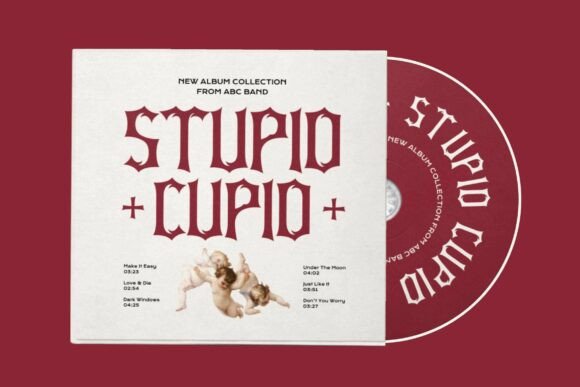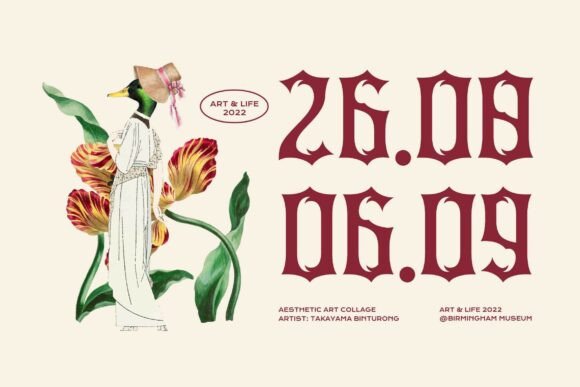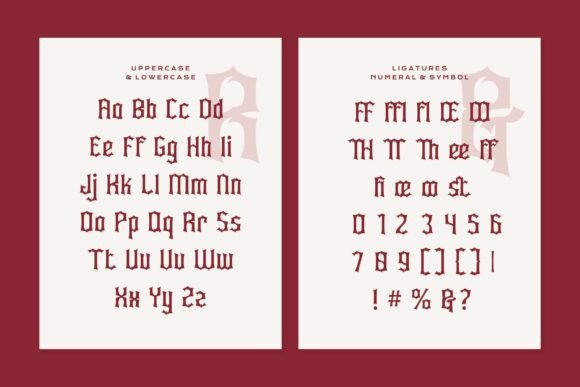
Unveiling Goneasi Font: The Romantic Gothic Typeface Redefining Blackletter Style
In the realm of typography, few fonts manage to capture the essence of both historical gravitas and modern sophistication. Goneasi typeface is one such remarkable creation that reimagines the traditional blackletter style with a contemporary twist. This romantic gothic font is not just a typeface but an experience, designed to elevate your designs with its unique blend of classic and modern elements.
The Essence of Goneasi Typeface
Goneasi typeface stands out with its dagger-like sharp serifs and tall, slender letterforms, creating a dramatic silhouette that commands attention. This distinctive feature set allows it to blend the ornamental spirit of classic blackletter with a modern impression, making it perfect for a wide range of design applications. From impactful titles and music album covers to fashion branding, editorial layouts, event posters, and premium product packaging, Goneasi brings a touch of elegance and boldness to any project.
Design Versatility
One of the key strengths of the Goneasi typeface is its versatility. It thrives in both dark, moody aesthetics and romantic vintage designs, making it an ideal choice for designers looking to create a specific ambiance. Whether you’re working on a project that demands a sophisticated yet bold touch or aiming to create a focal point with ornate illustrations or minimalist compositions, Goneasi typeface adapts seamlessly.
Technical Excellence: PUA Encoding
Goneasi font is PUA (Private Use Area) encoded, which means it offers effortless access to all glyphs, swashes, and alternate characters. This feature is particularly beneficial for designers as it provides the flexibility to experiment with different stylistic variations without the hassle of glyph substitution or manual adjustments. The PUA encoding ensures that you can unlock the full creative potential of the Goneasi typeface, making your design process smoother and more efficient.
Applications of Goneasi Typeface
- Music Album Covers: The dramatic and elegant presence of Goneasi makes it an excellent choice for music album covers, especially for genres like classical, gothic rock, or indie music.
- Fashion Branding: For fashion brands looking to convey a sense of luxury, mystery, or romance, Goneasi typeface offers a unique solution that sets them apart from the competition.
- Editorial Layouts: Add a touch of sophistication to editorial layouts, including magazines, journals, and books, with the distinctive look of Goneasi.
- Event Posters: Create stunning event posters for weddings, gothic-themed parties, or literary events with a font that exudes elegance and mystery.
- Premium Product Packaging: Elevate the packaging of luxury products with a typography that speaks of high-end quality and sophistication.
Why Choose Goneasi?
Choosing Goneasi typeface for your design project means opting for a font that is not just visually striking but also versatile and practical. Its unique blend of traditional blackletter elements with a modern twist ensures that your designs stand out. Moreover, the PUA encoding of Goneasi font makes it user-friendly, allowing designers to focus on creativity rather than technical limitations.
Goneasi typeface is more than just a font; it’s a design statement. With its romantic gothic appeal, sharp serifs, and modern refinement, it offers a fresh perspective on the traditional blackletter style. Whether you’re a designer looking to add a touch of drama to your projects or a craftsperson seeking the perfect typography to convey a message, Goneasi typeface is an exceptional choice. Dive into the world of typographic excellence with Goneasi and discover how this remarkable font can transform your designs.